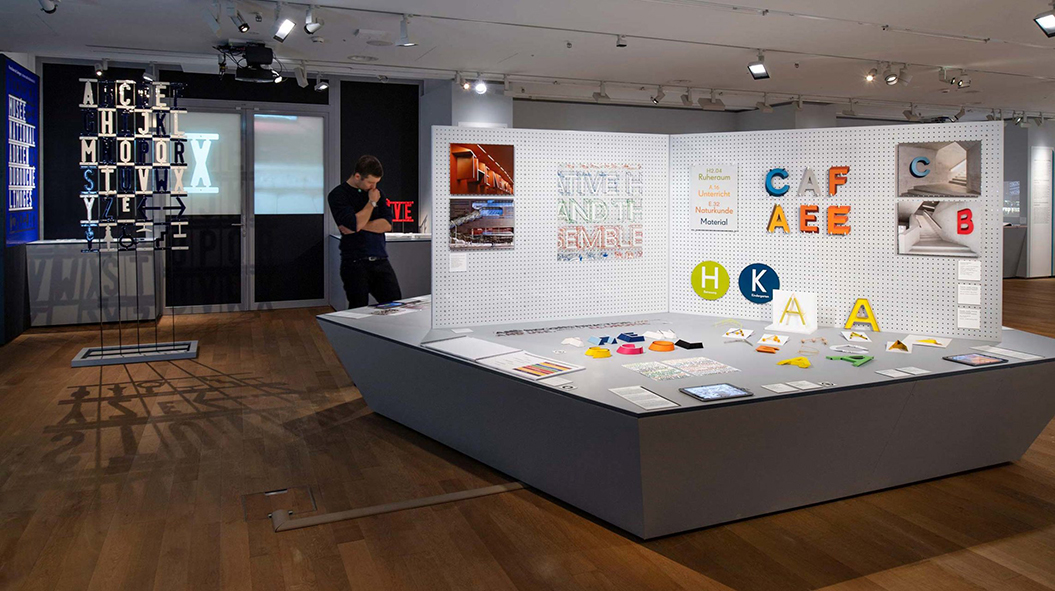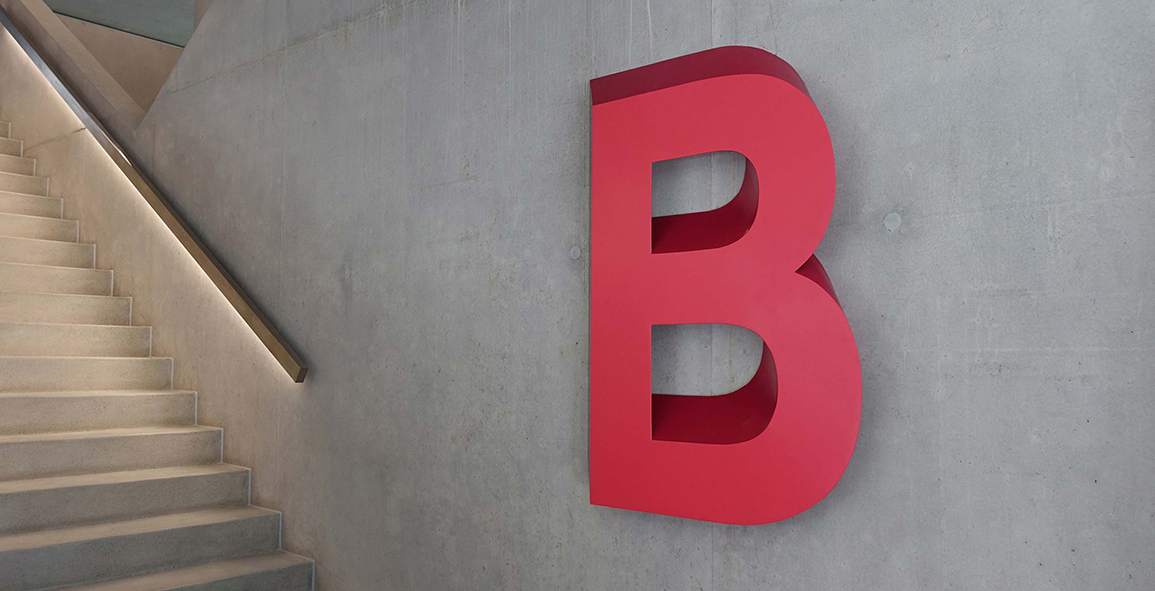
What's in a 3D building signage? Zurich’s Museum for Design exhibition has the answers
They are all around us and they really do define the topography and the character of each neighborhood which "hosts" them. The range of written language on public view speaks volumes and Zürich's Museum für Gestaltung is celebrating the craftsmanship and the people who are giving personality through typography to the concrete which surrounds us.
"Three-dimensional typefaces are omnipresent and exceptionally diverse: from festive decorations to shop displays, from art installations to typefaces on buildings and in public space. Such typefaces are especially popular because of their haptic presence, as they counterbalance the letters scuttling across shimmering screens" notes the museum.
The exhibition which runs through the 14th of April focuses on 3D lettering on buildings, which take into account architectural features and their surroundings bringing a fitting identity to each individual construction. Thus, it leaves aside interchangeable branding facades.
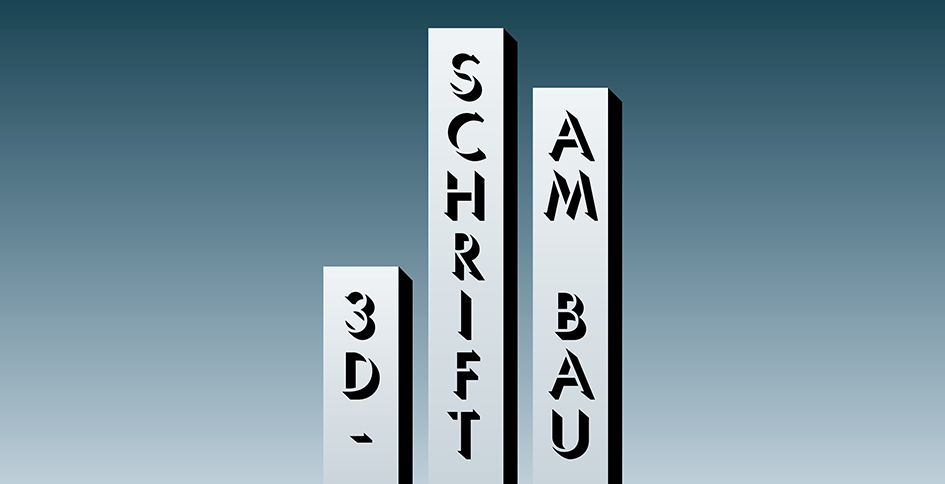
Using innovative national and international examples from the last 20 years, the exhibition explores the task and design of 3D typefaces, which are often part of a comprehensive communication system both indoors and outdoors.
Eventually, Zurich’s Museum for Design is celebrating Swiss sign design with the exhibition “3D-Schrift am Bau” (3D signs on buildings) in which visitors can see examples of how designers experiment with technology and new materials.
With a focus on Swiss signage, the exhibition, which is a definitive tribute to the oh-so-clean Swiss signage, brings into the limelight a selection of international inscriptions for buildings and their surroundings with 24 projects presenting 3D writing on the outside and inside of buildings.
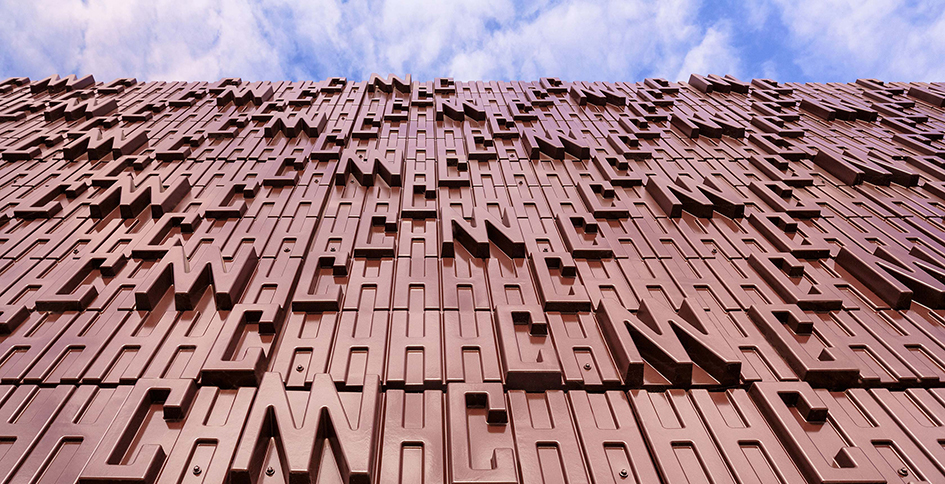
Zürich's Museum für Gestaltung is the leading museum of design and visual communication in Switzerland. The exhibition program presents a wide range of themes and monographs from the areas of industrial and product design, graphic design, typography, photography, posters, films, furniture, fashion, jewelry, crafts, architecture and scenography. Located in the heart of Zurich-West, the city’s dynamic trend district, the Museum für Gestaltung is a must-go destination for the lovers of graphic design and typography.